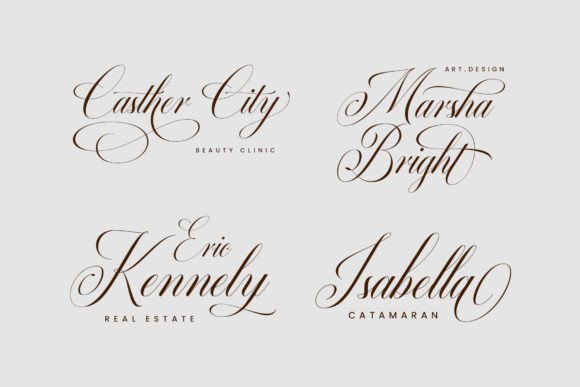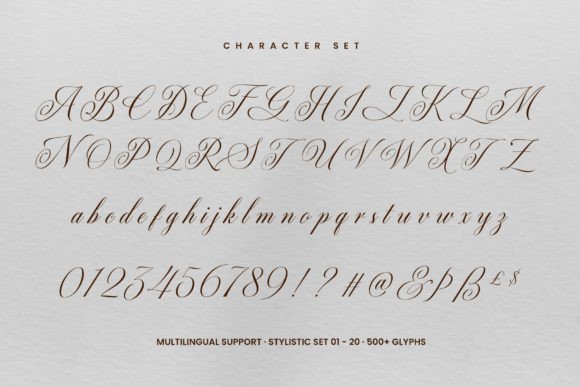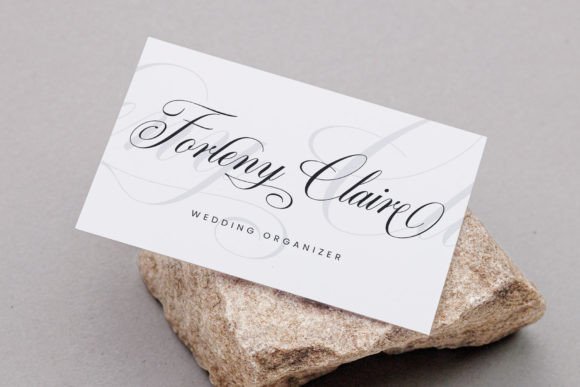
About Quadrian Font
Say Hello to Quadrian, a modern calligraphy font. Carefully designed with consistent strokes, this beautiful script font offers a minimalist, luxurious and classy feel. This font is perfect for anything that needs an elegant, beautiful, feminine, and dramatic look. You can apply this font to wedding invitations, logotypes, romantic quotes, labels, and branding.